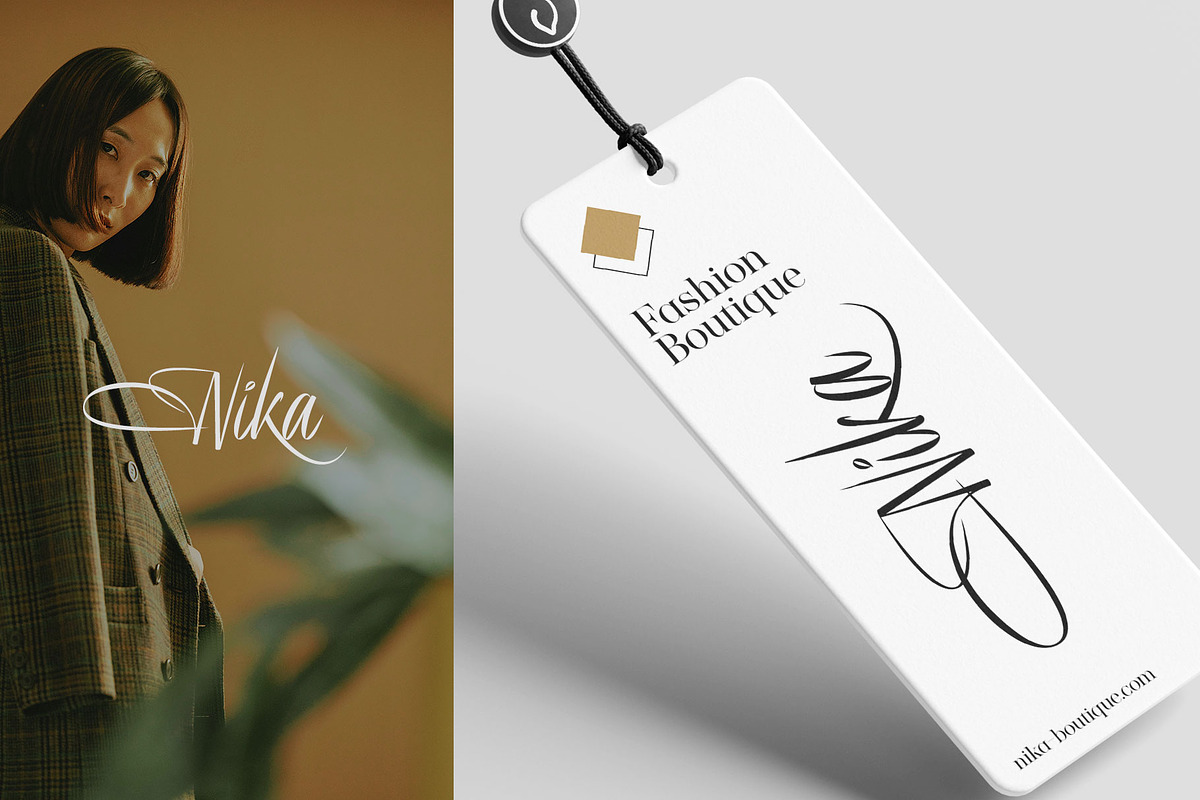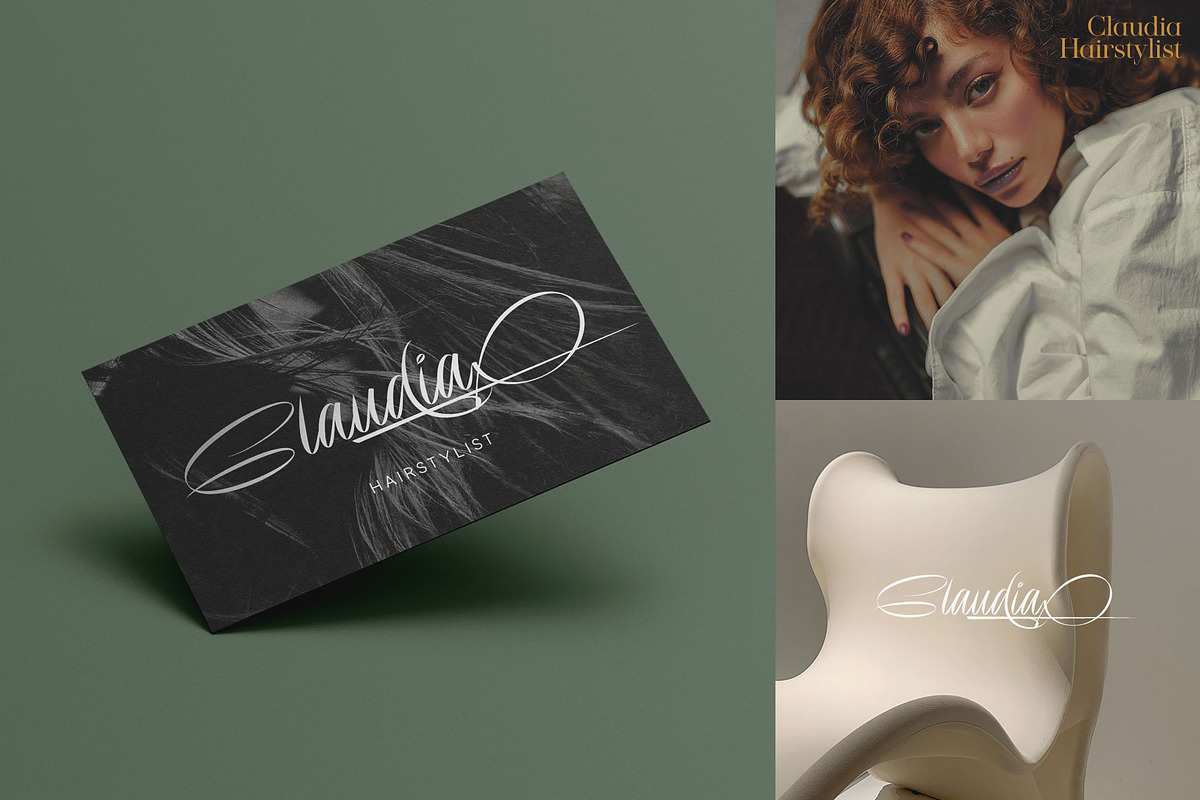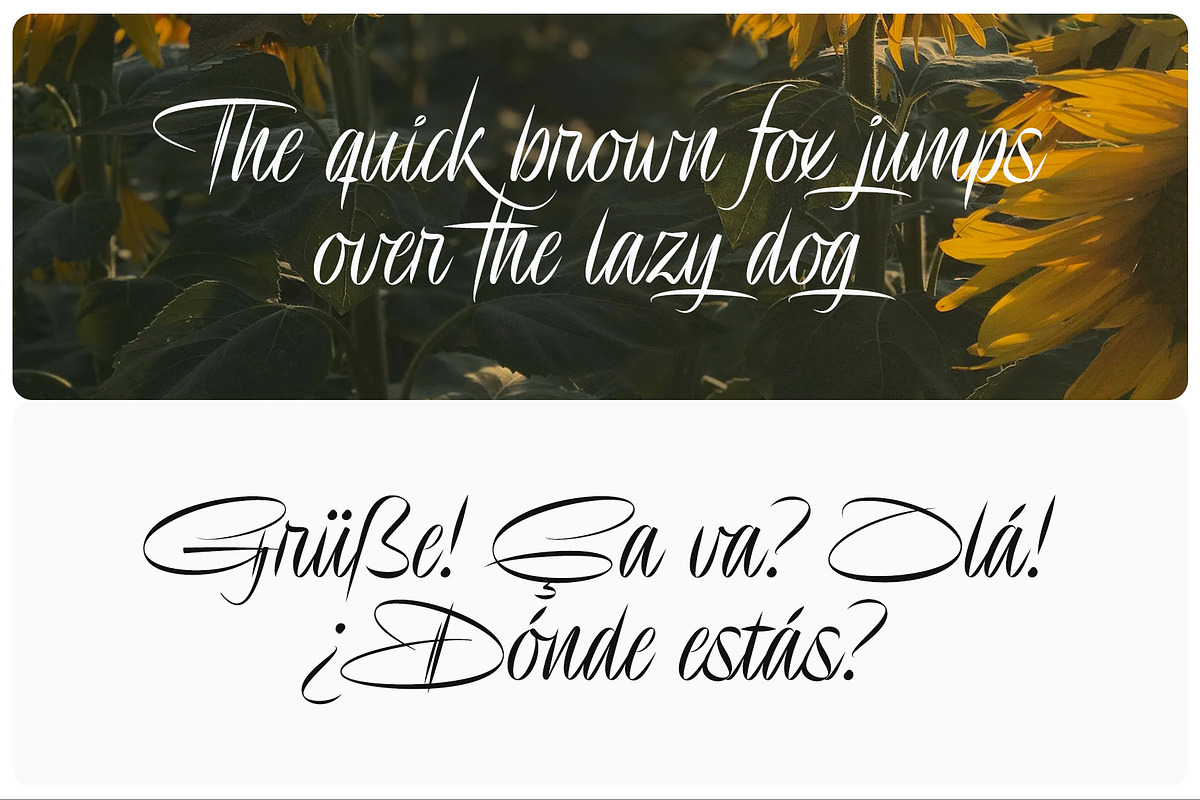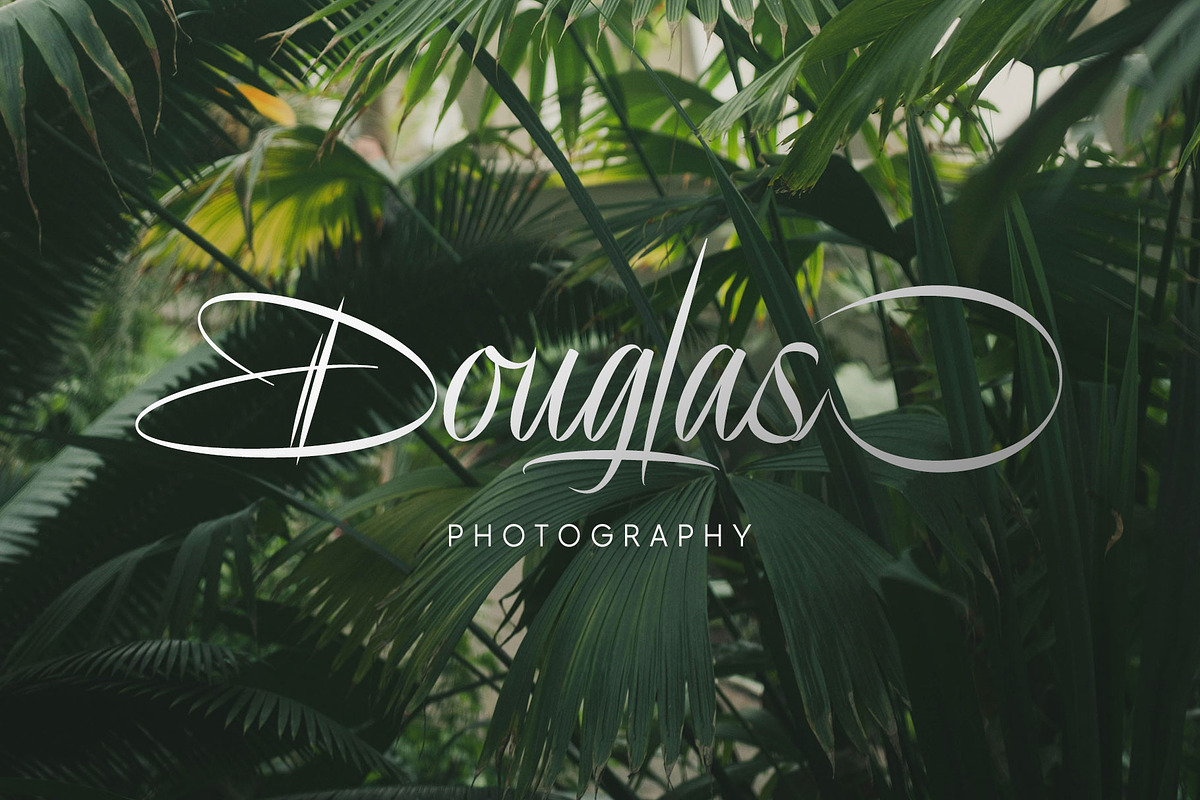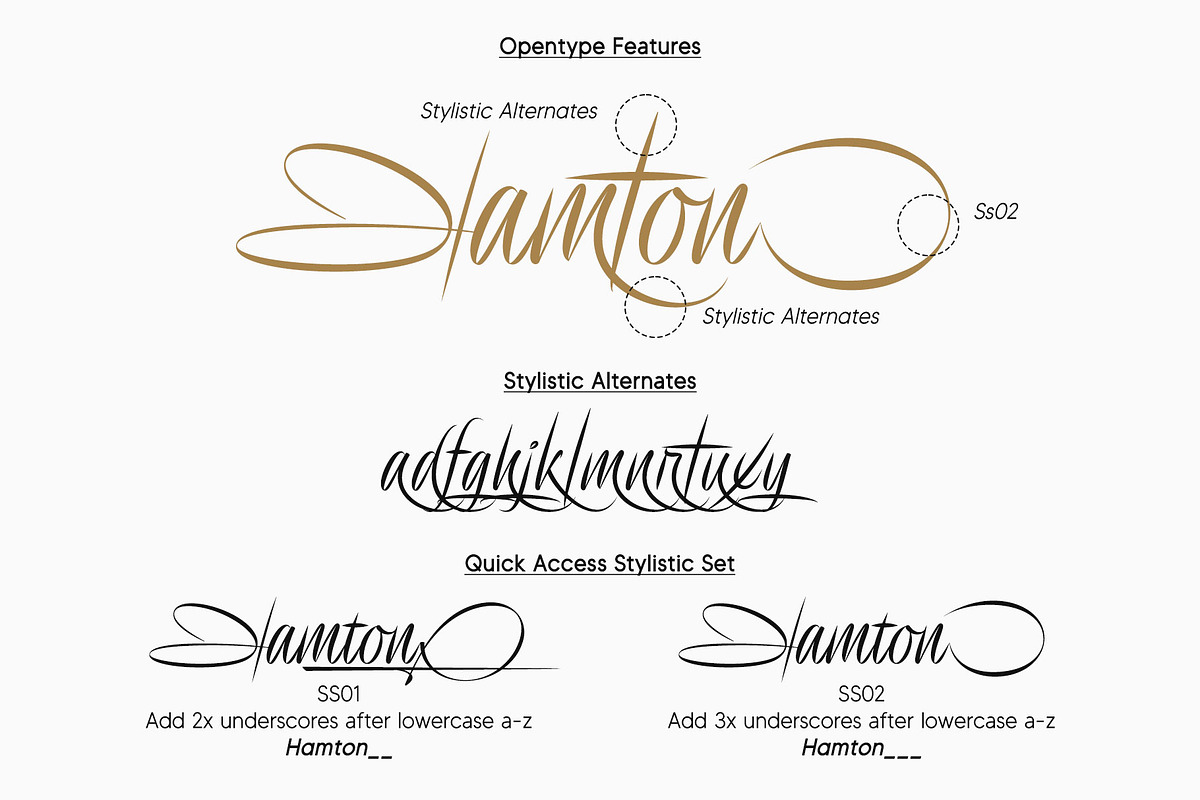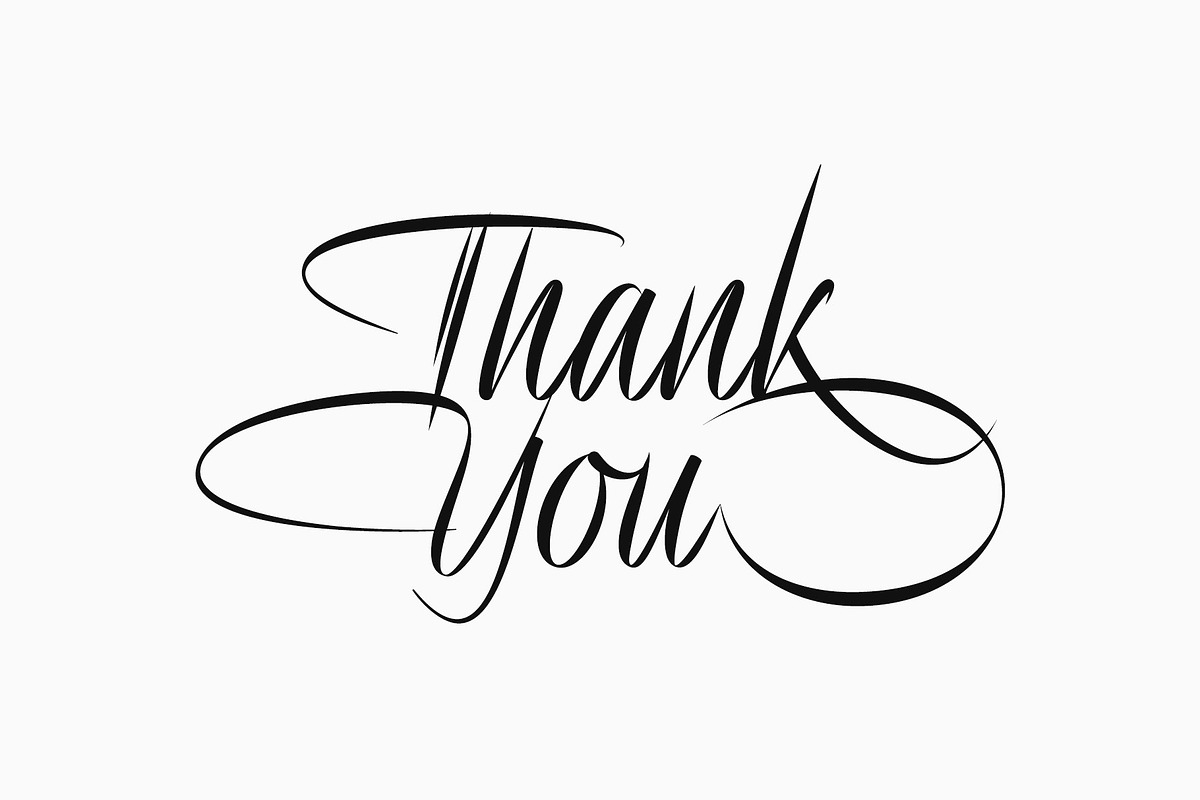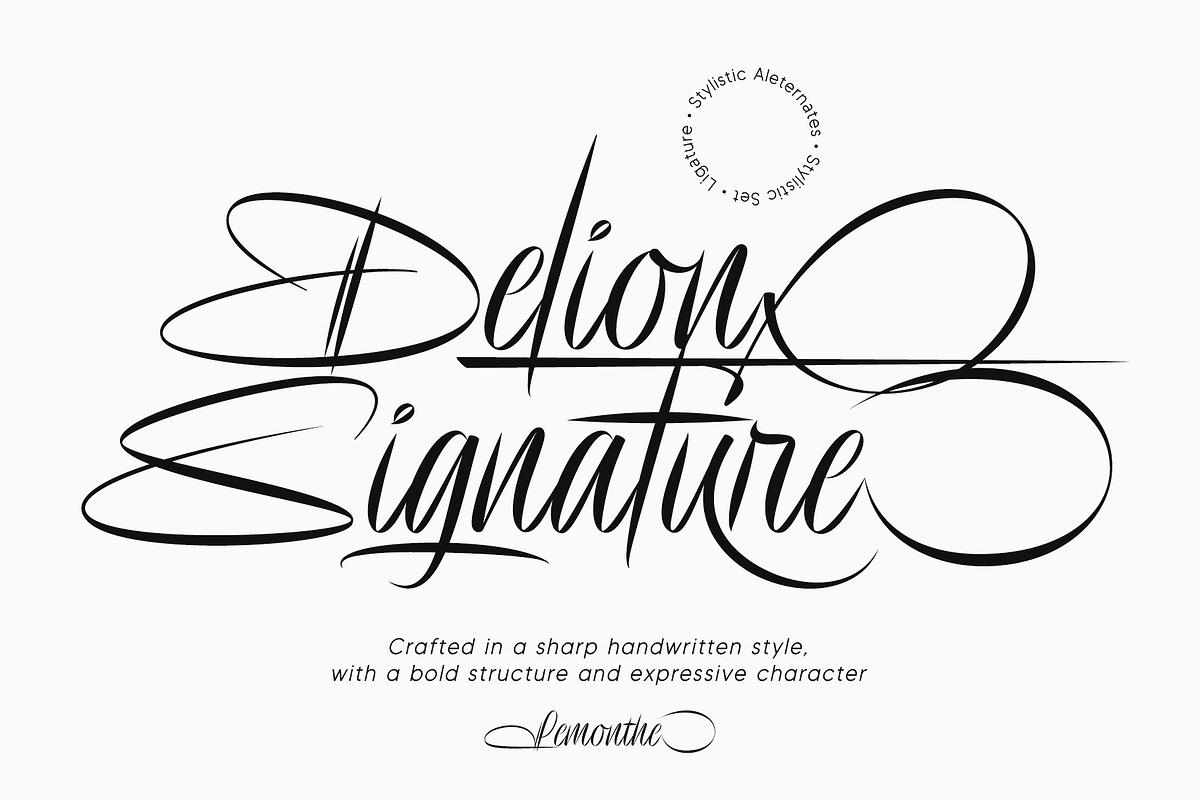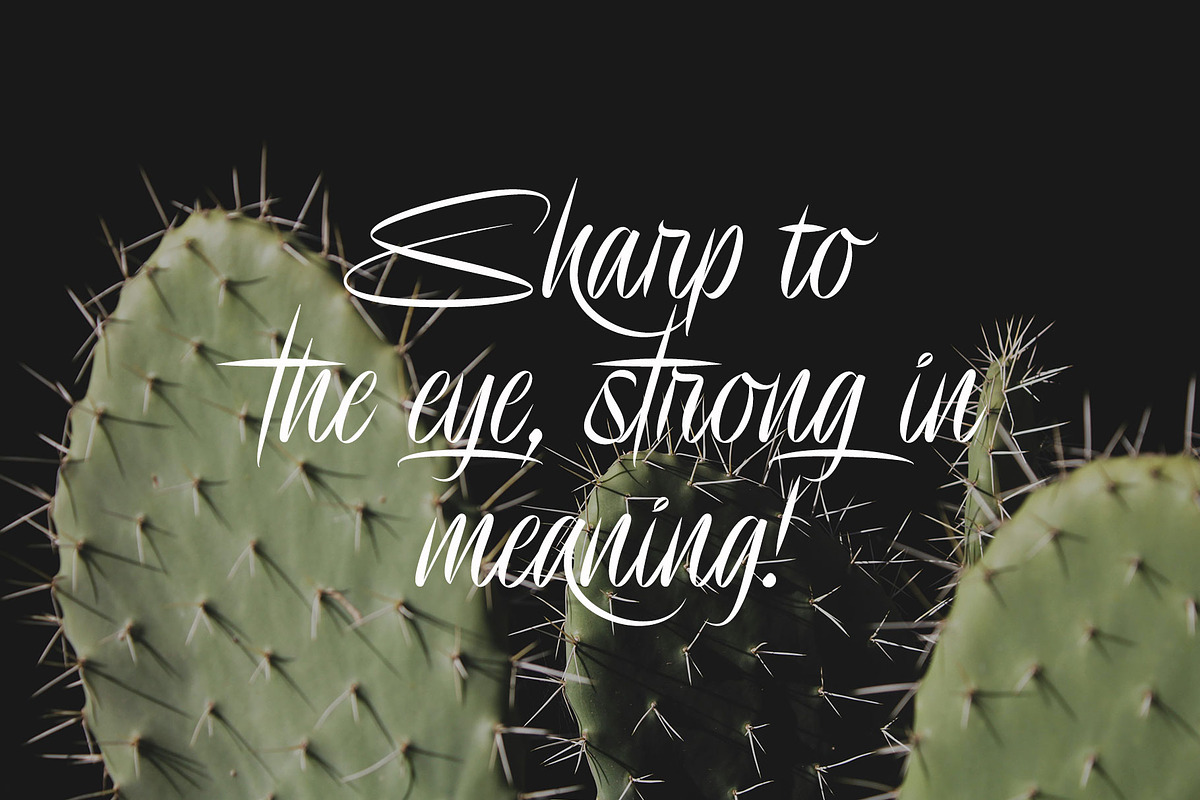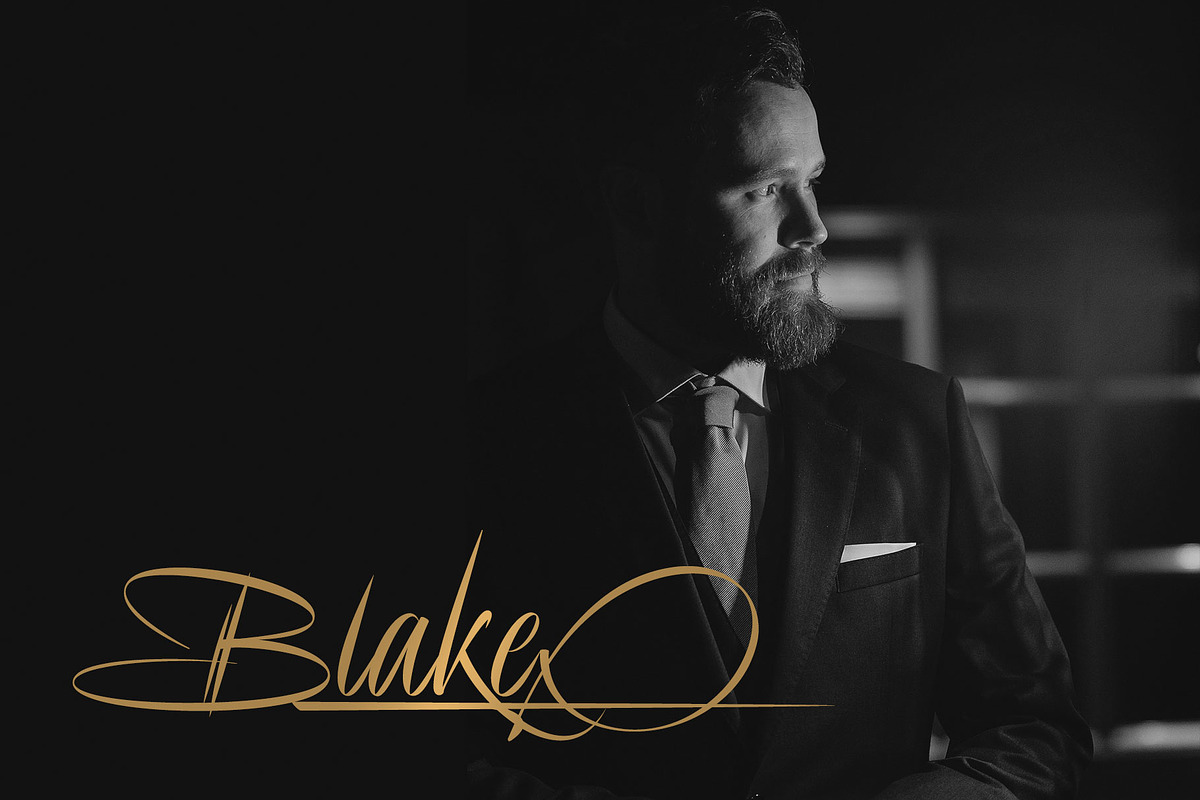
Delion | Signature Font
An elegant and expressive signature font, designed with sharp strokes and bold curves. Delion Signature blends a modern handwriting look with a professional artistic touch, making it perfect for branding, personal logos, wedding invitations, product packaging, and other creative projects that require a standout and character-rich appearance.
- Stylistic Set
- SS01: Add 2x underscores at the end of lowercase letters a-z
- SS02: Add 3x underscores at the end of lowercase letters a-z